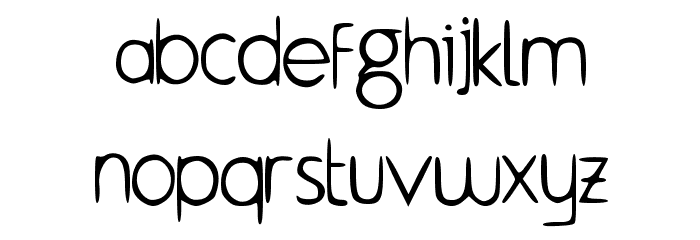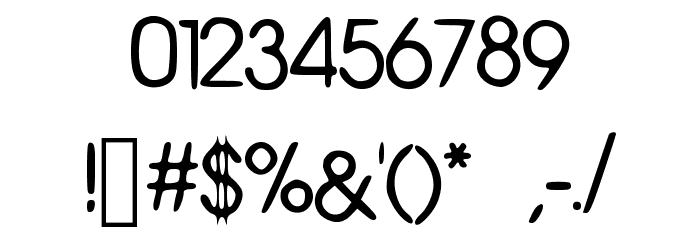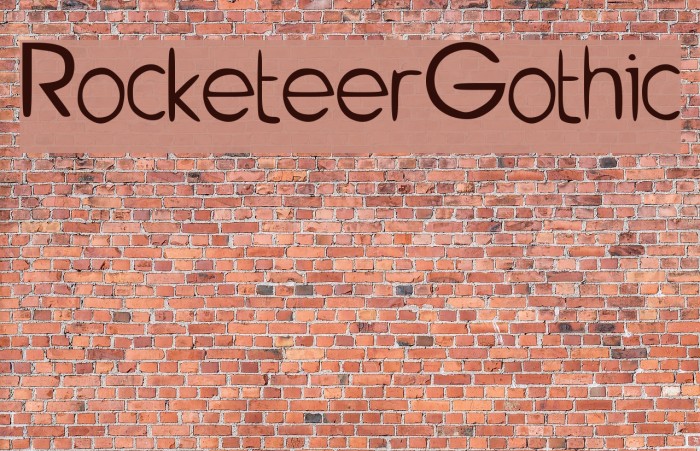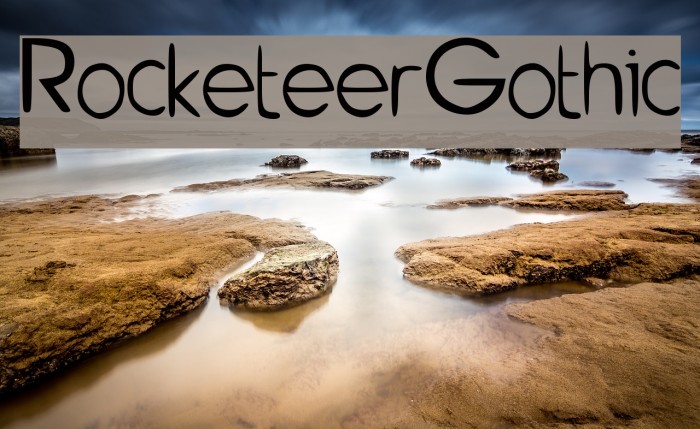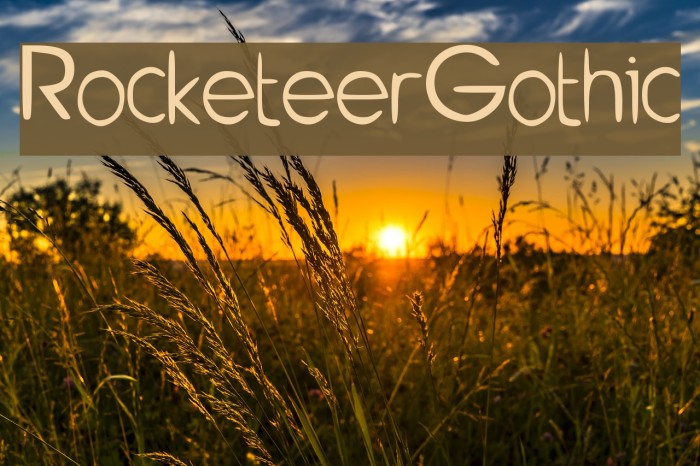
Rocketeer_Gothic Font
This font features a unique blend of modern and retro elements, characterized by its rounded edges and elongated forms. The uppercase letters have a distinct geometric style, while the lowercase letters maintain a more fluid and organic appearance. The numerals are consistent with the overall design, offering a cohesive look. Special characters are thoughtfully integrated, maintaining the font's playful yet sophisticated aesthetic. This typeface stands out with its artistic flair, making it ideal for creative projects.
A modern-retro font with rounded edges and elongated forms, perfect for creative designs.